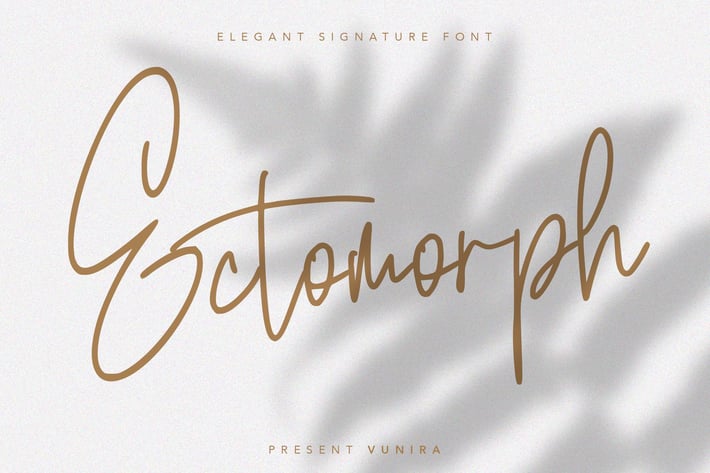
Ectomorph | Elegant Signature Font
Ectomorph | Elegant Signature Font with a calligraphy style, So beautiful on invitation like greeting cards, branding materials, business cards, quotes, posters, and more!